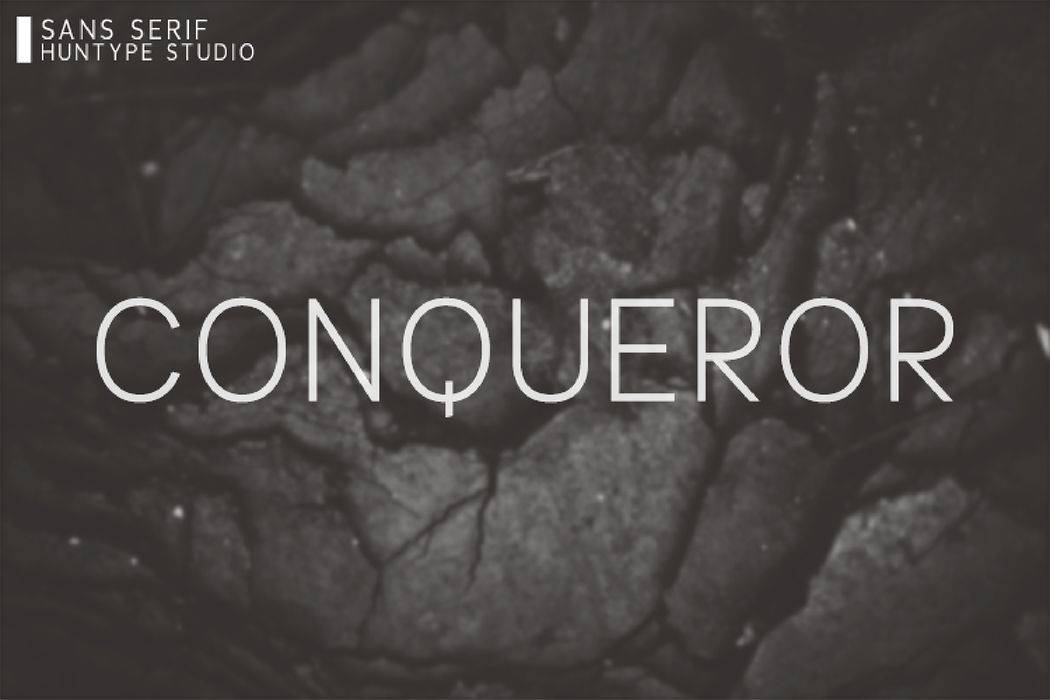
Conqueror is a sleek, modern sans serif font characterized by its thin, clean lines and tall, narrow letterforms that give it an elegant and refined appearance. Its geometric shapes and minimal stroke contrast lend a contemporary, sophisticated vibe, making it ideal for luxury branding, editorial headlines, and stylish logos where a polished and distinctive look is desired. This font works best in large sizes to showcase its unique details and graceful letter shapes.
Conqueror Font
About Conqueror Font
| Font family | Conqueror Font |